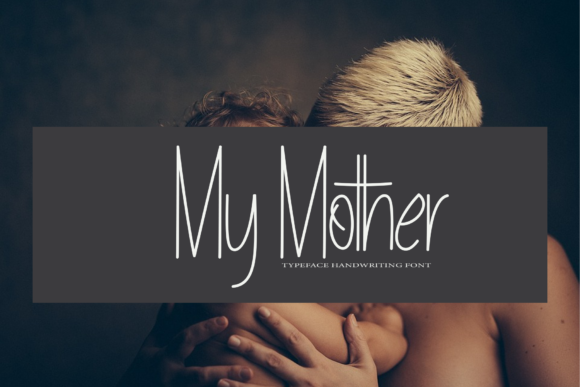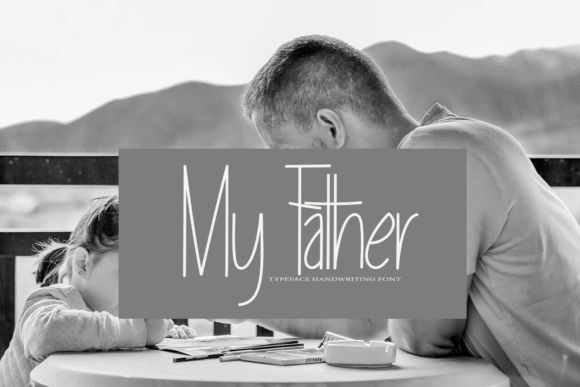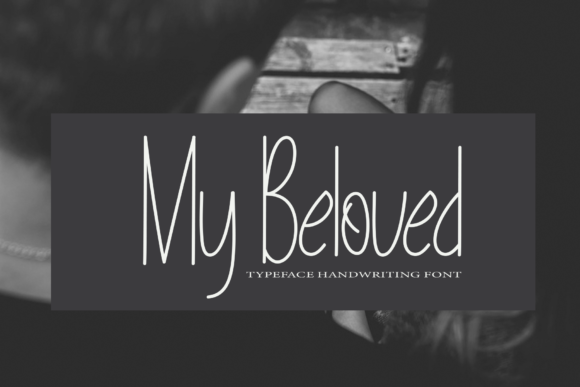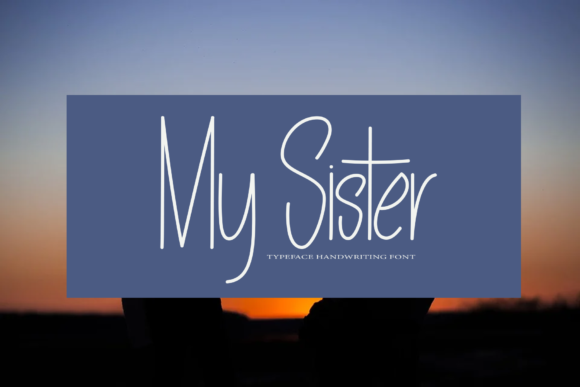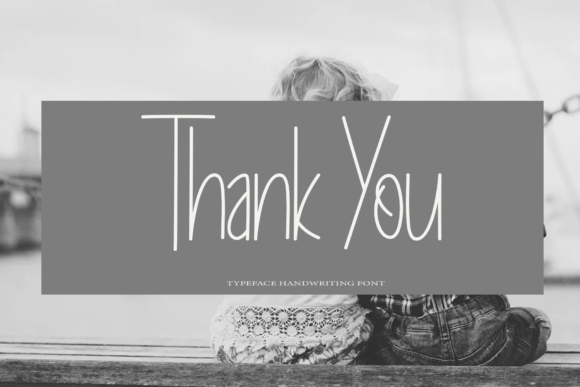
Introduction to My Familly Font
My Familly is a clean, thin lettered and simple handwritten font, that can be used for all chalkboard quotes or teaching material.
Its authentic look will add a personal and realistic feel to your designs .